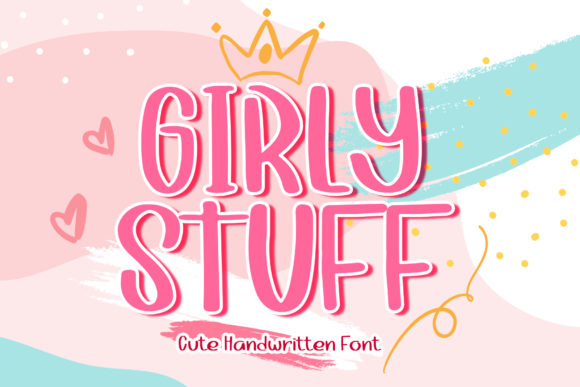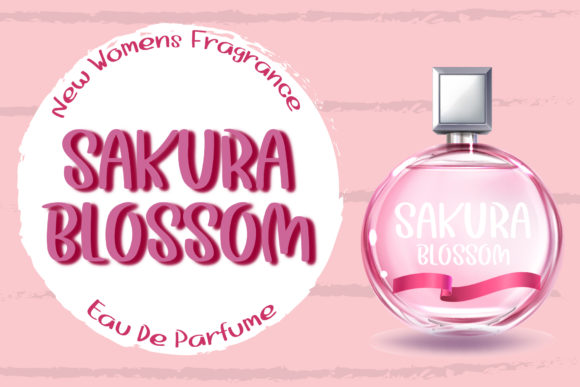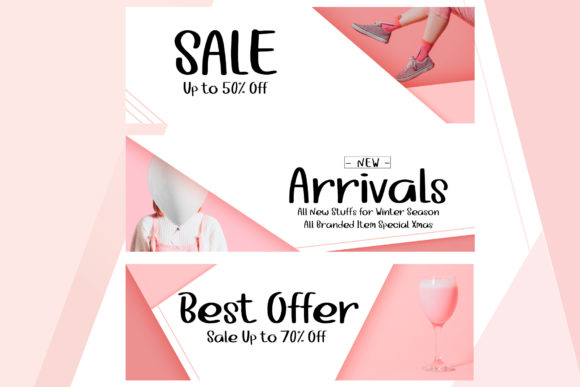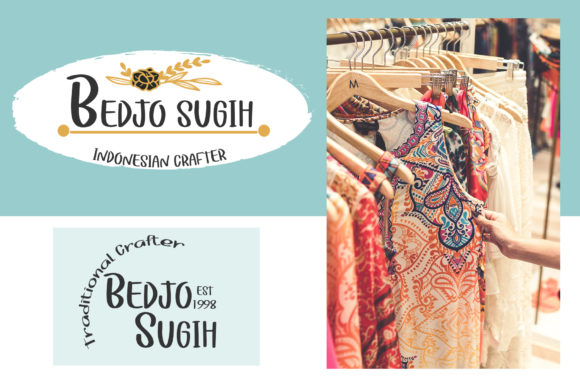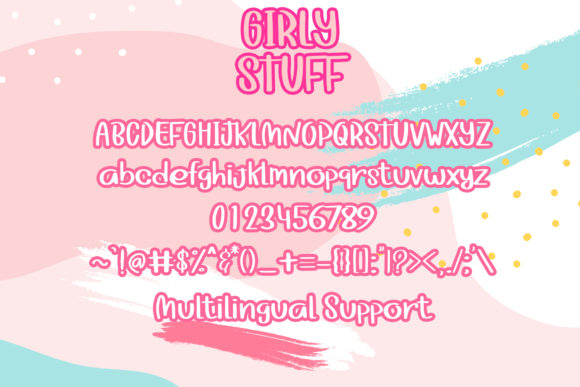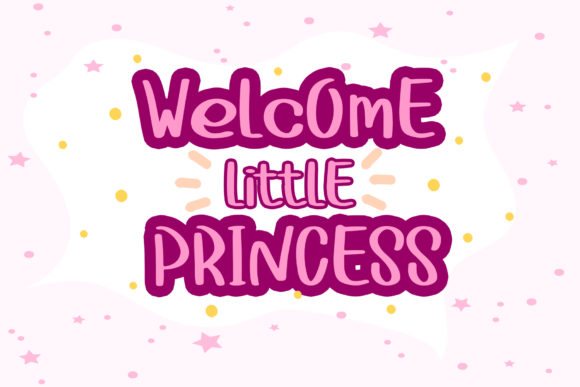
Girly Stuff Font
About Girly Stuff Font
Girly Stuff is a simple and natural handwritten font. Whether you’re using it for crafting, digital designing, presentations or greeting cards making, it’s perfect!